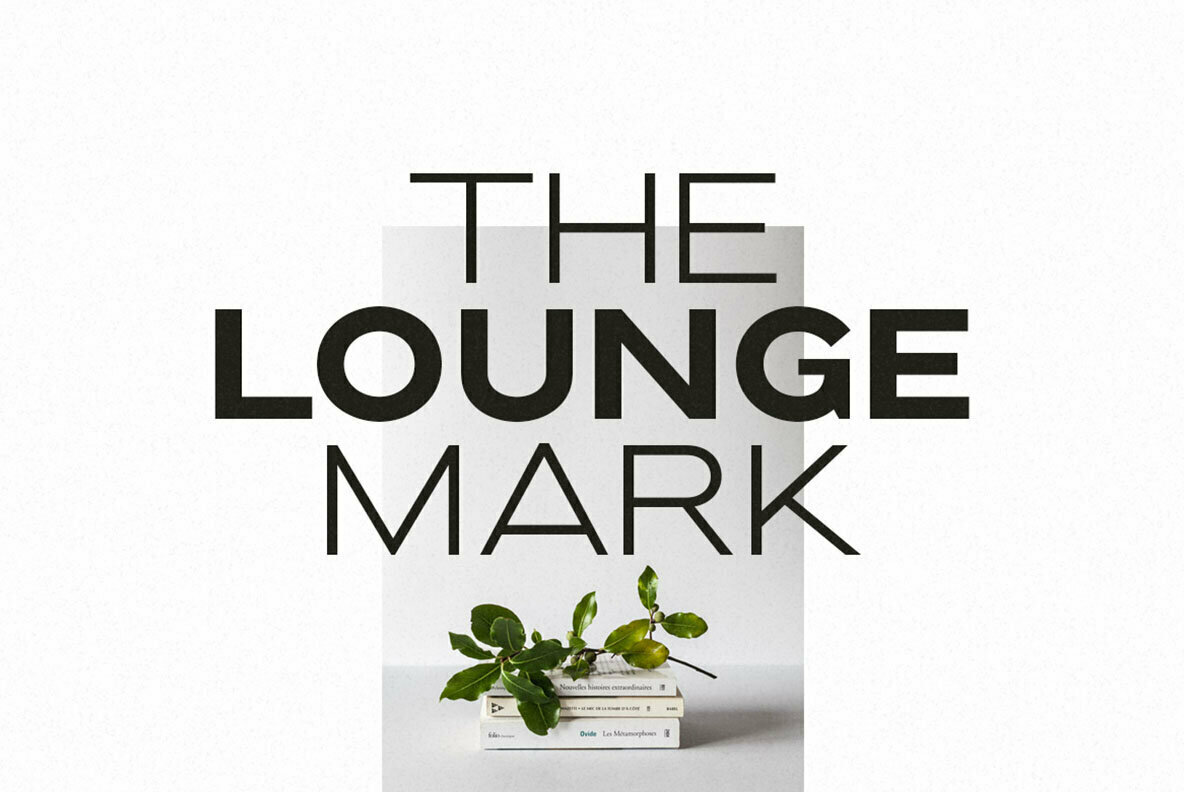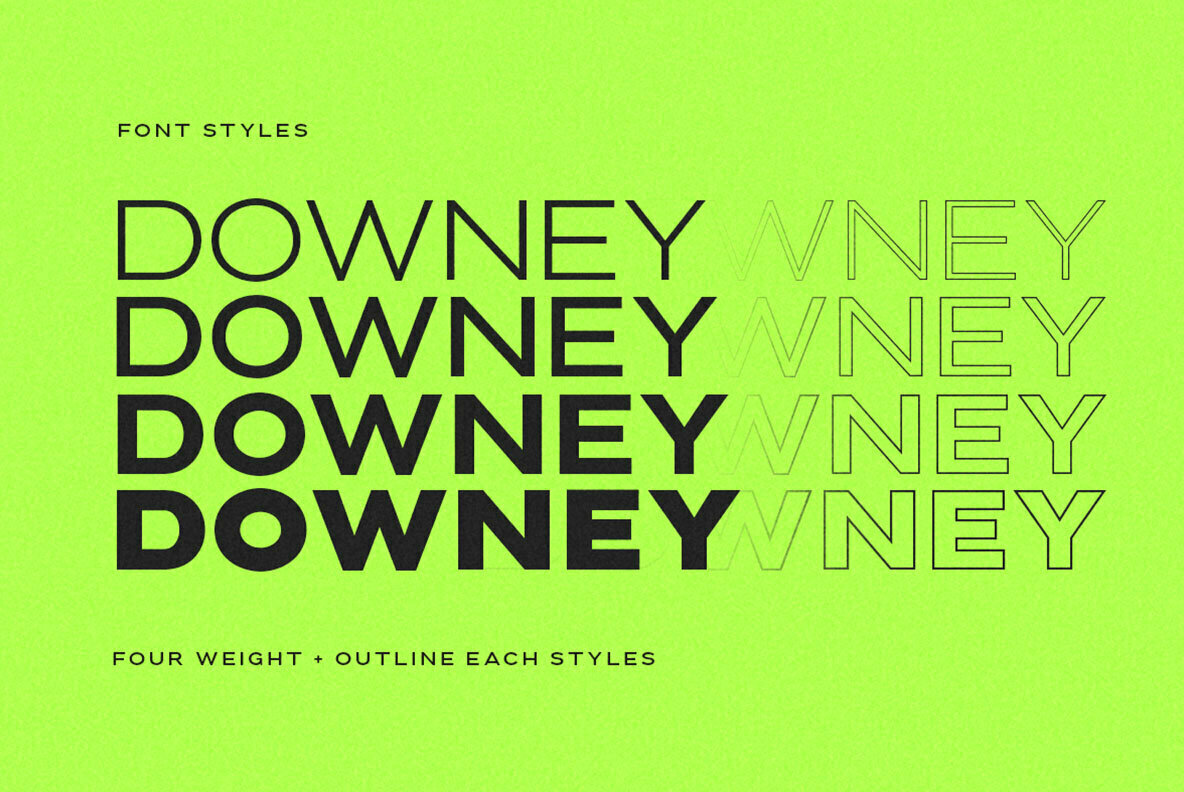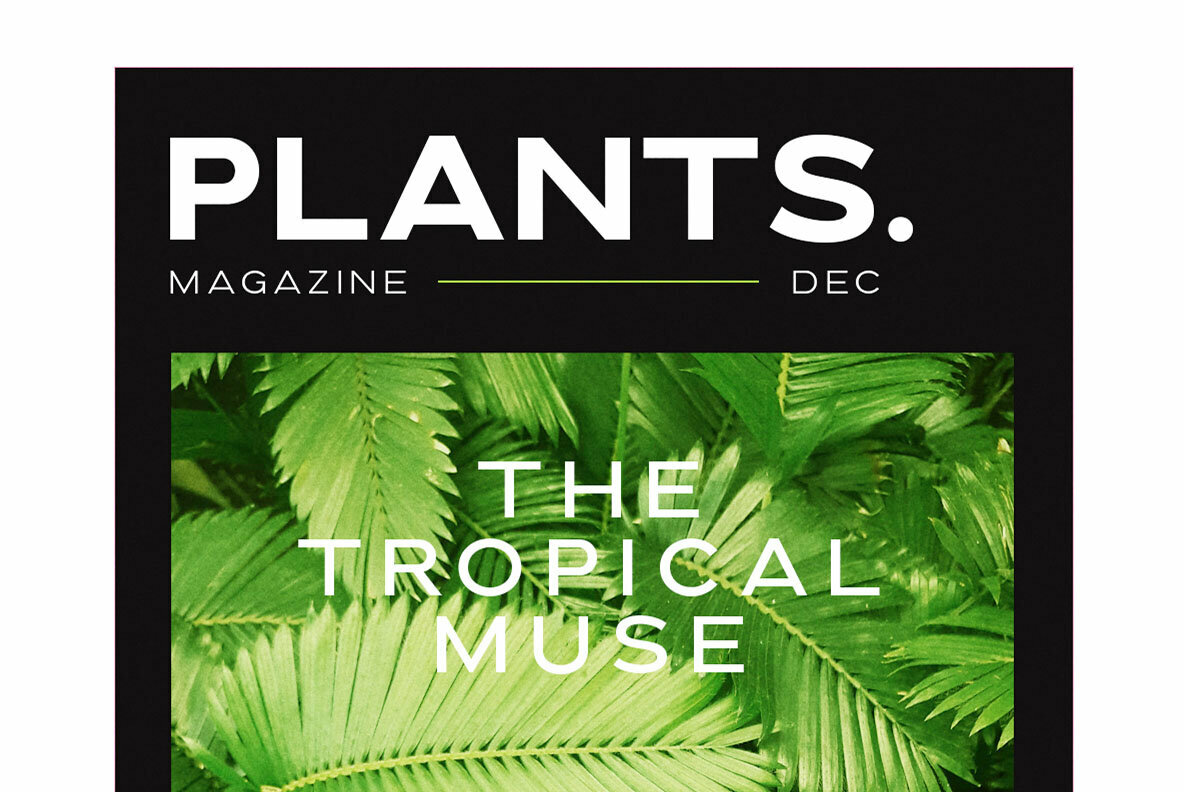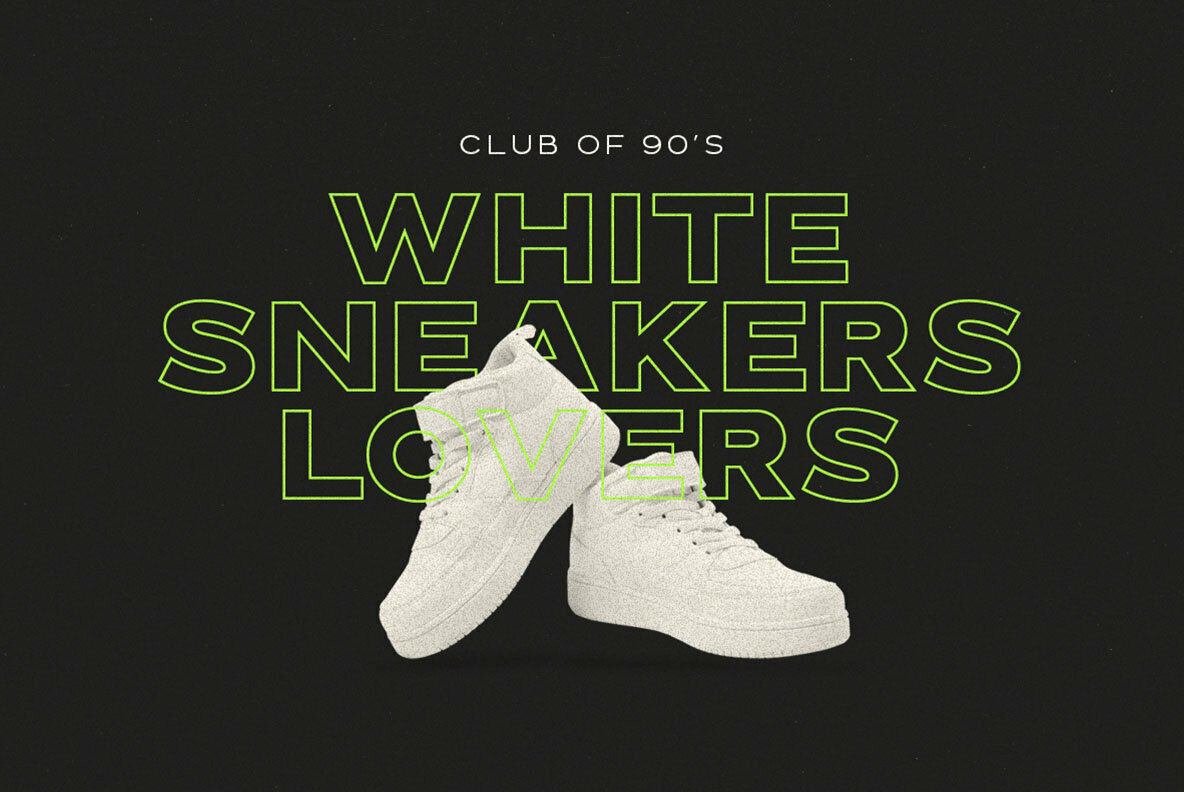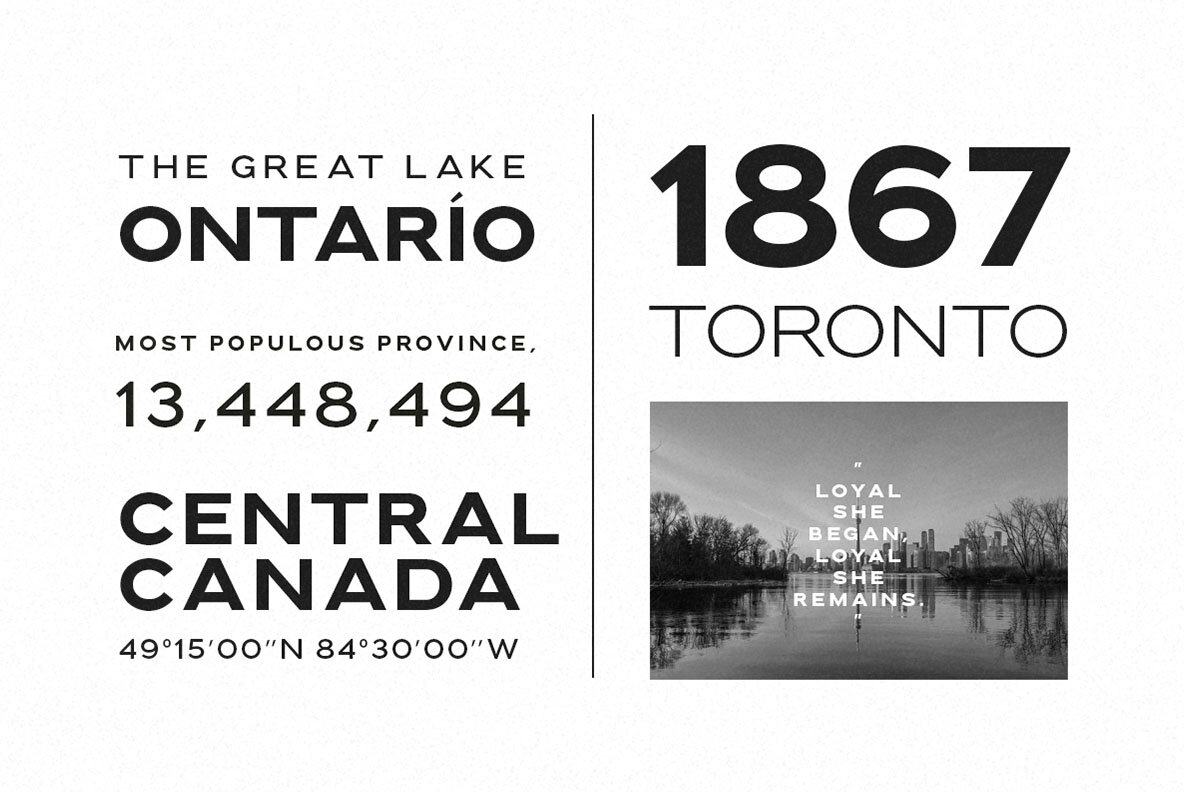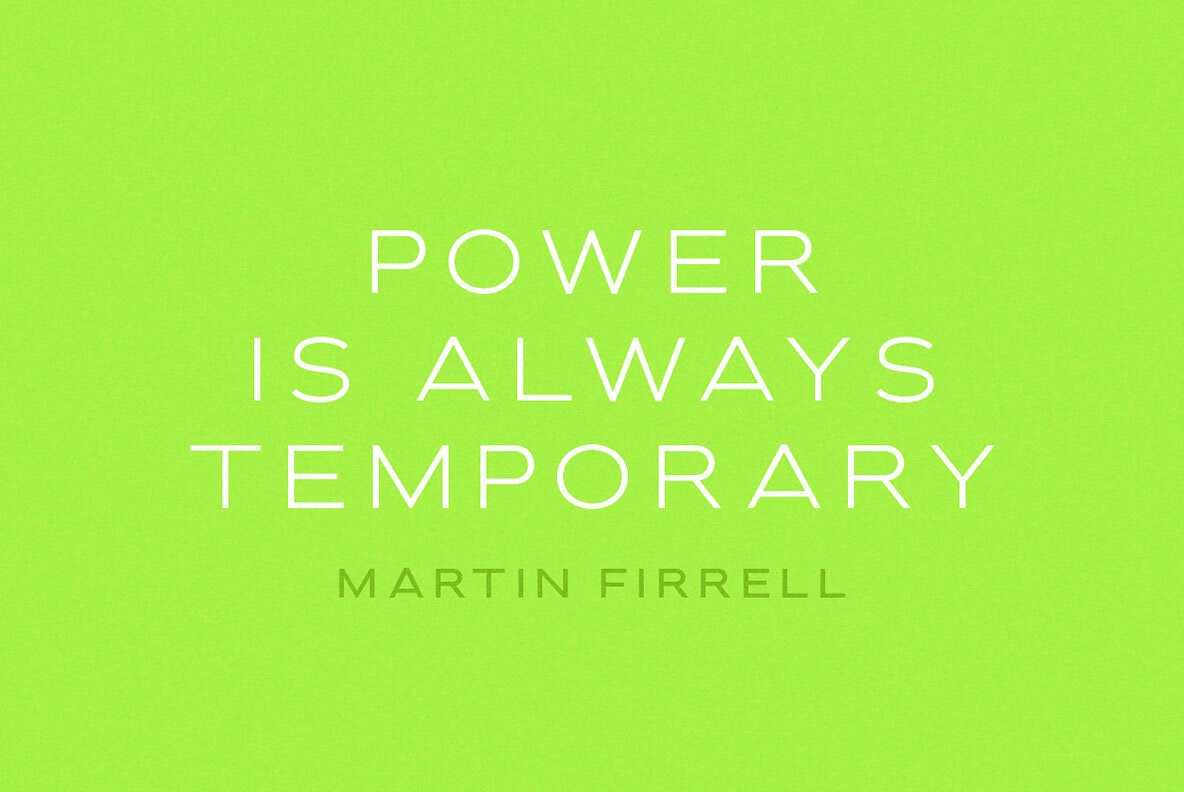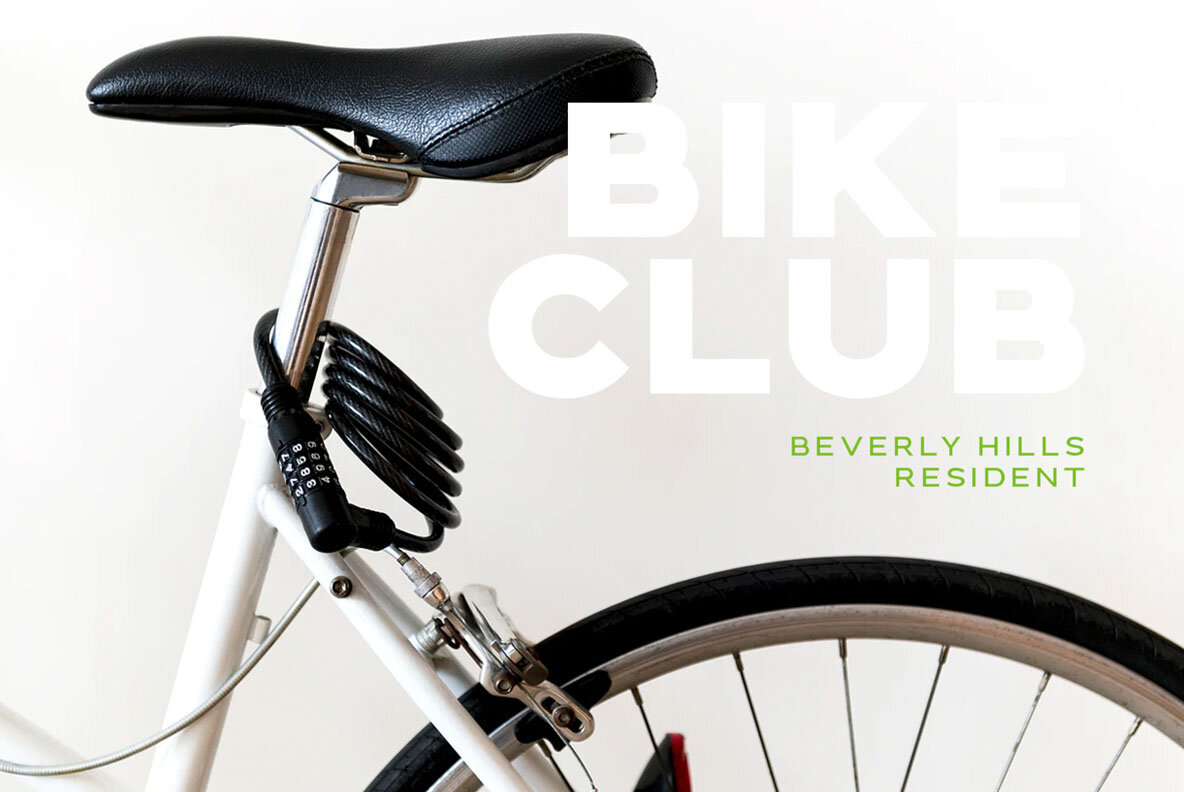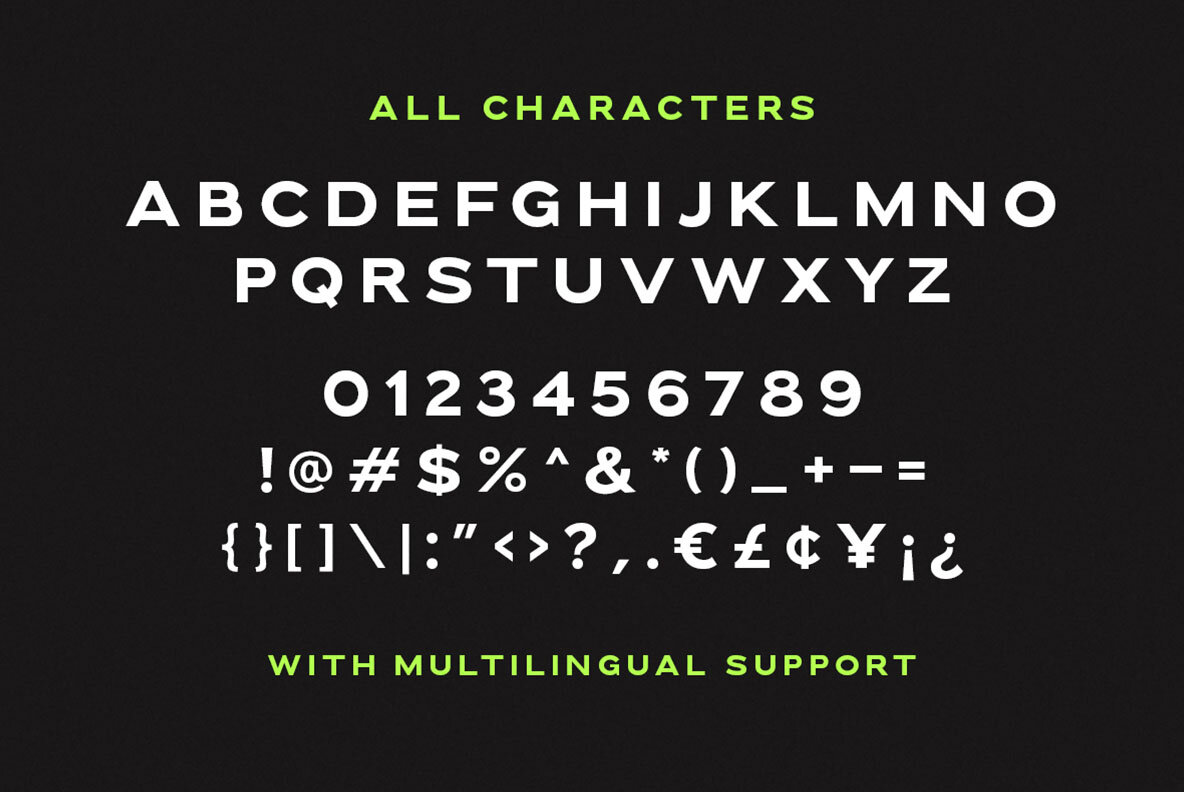
Downey Font
Downey stands as a casual yet essential all-caps sans serif that commands attention with its slightly wide form and robust appearance. This font seamlessly integrates into a myriad of projects—ideal for titles, logos, and quotes, or as a complementary pairing with other fonts.Downey: Versatile All-Caps Sans Serif